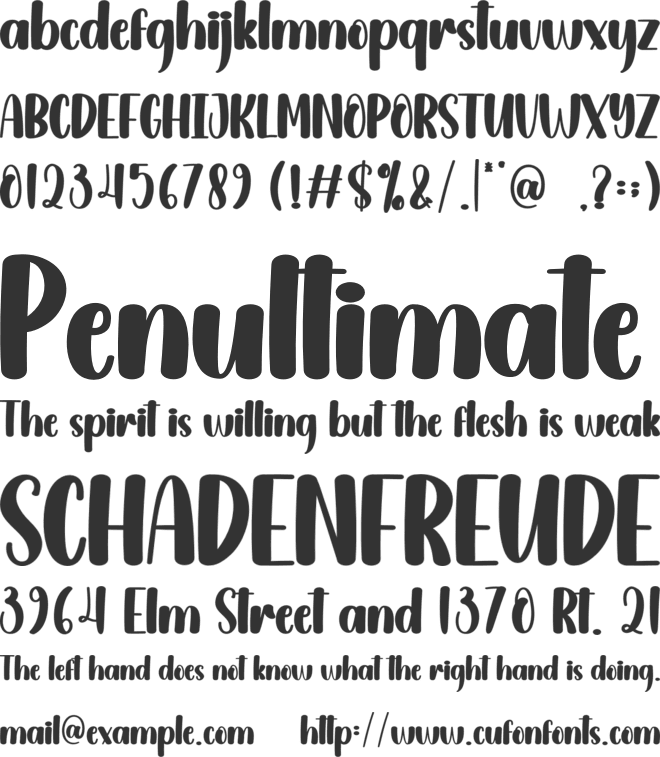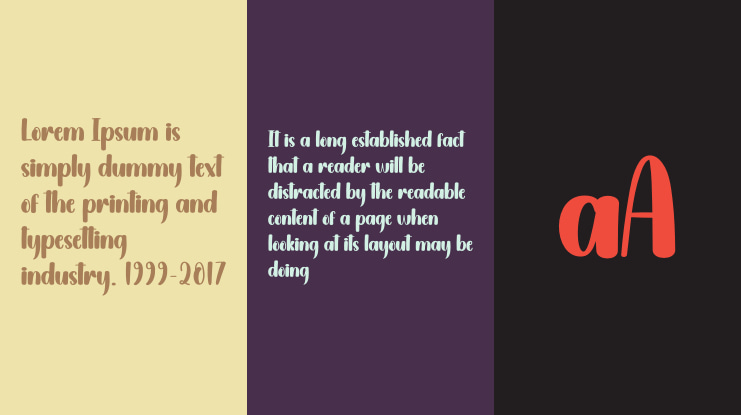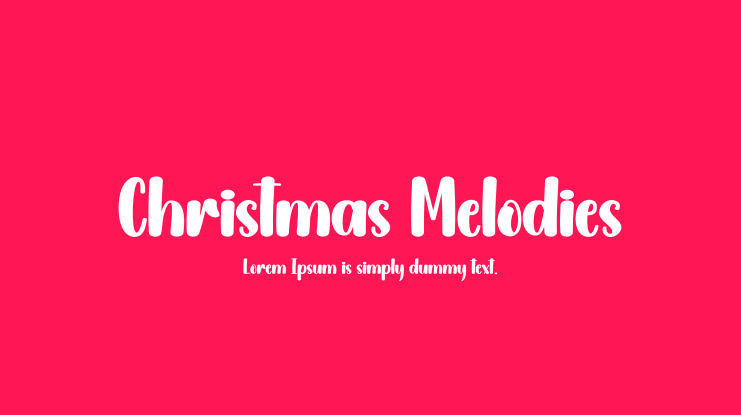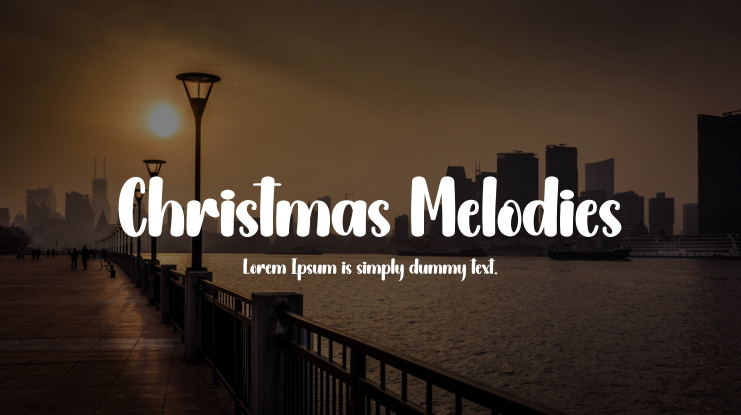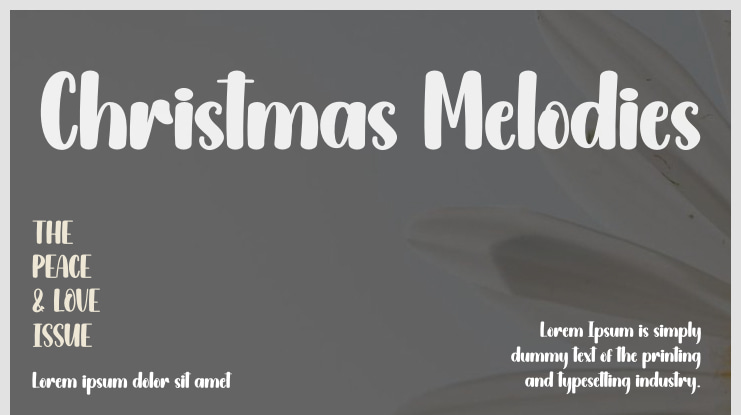
Christmas Melodies Font
Our special creative products are designed just for you, guaranteeing an extraordinary experience. Our latest style of letters is perfect for various applications, including wall displays, wedding invitations, social media post logos, advertisements, product packaging, product designs, labels, photography, watermarks, invitations, stationery, and any other project requiring elegant handwriting.